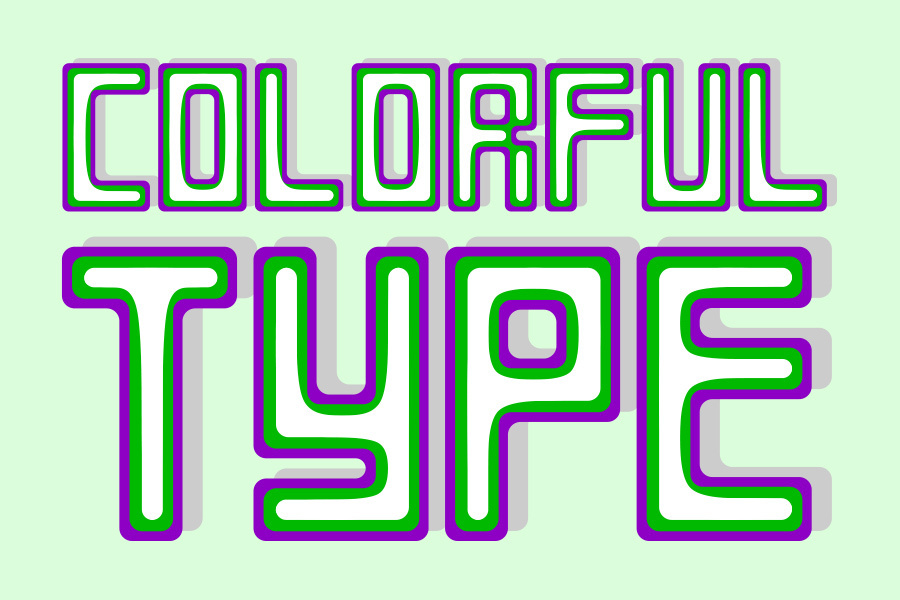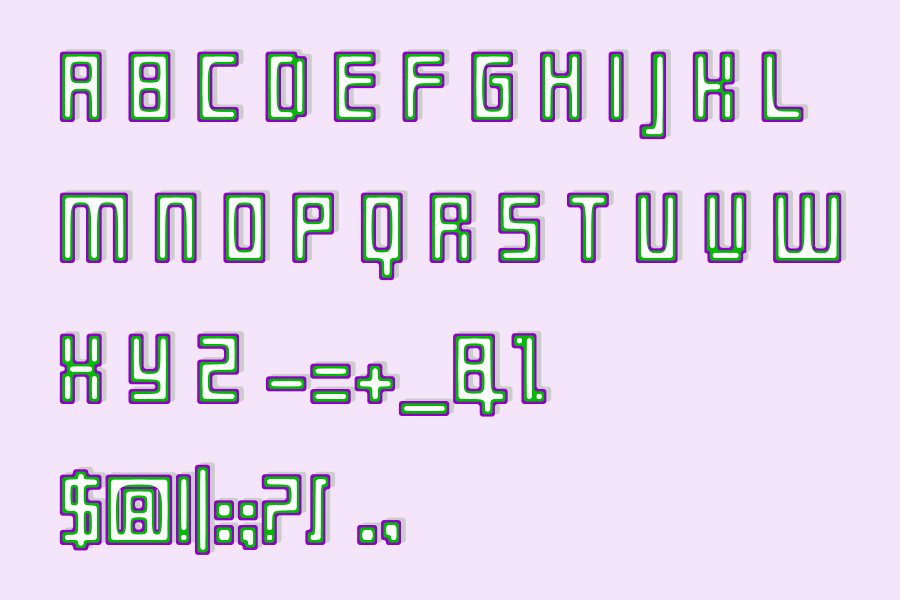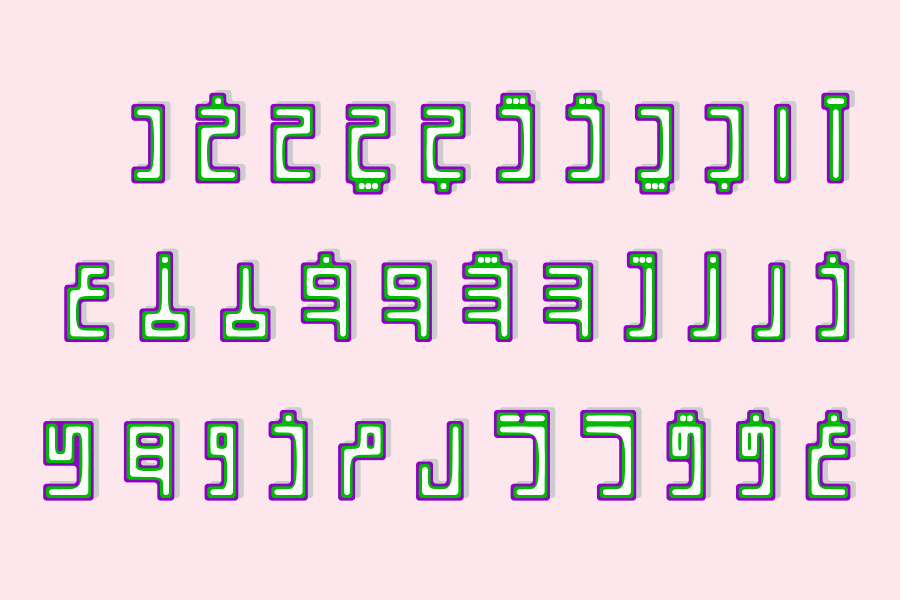
About KayKhosrow Font
KayKhosrow is a cubic monospace color font family that offers versatility and modernity to your designs or projects. With its unique design and support for Arabic and Persian scripts, this font adds a touch of color and style to your typography.
Whether you’re designing posters, logos, or digital artwork, KayKhosrow Colored can enhance your creative projects and bring a fresh and contemporary look. Its cubic monospace design and support for Arabic and Persian scripts make it suitable for a wide range of applications.
Embrace the versatility and modernity of KayKhosrow Colored and let it transform your designs with its vibrant colors and unique style. Download this impressive display font today and unleash your creativity.